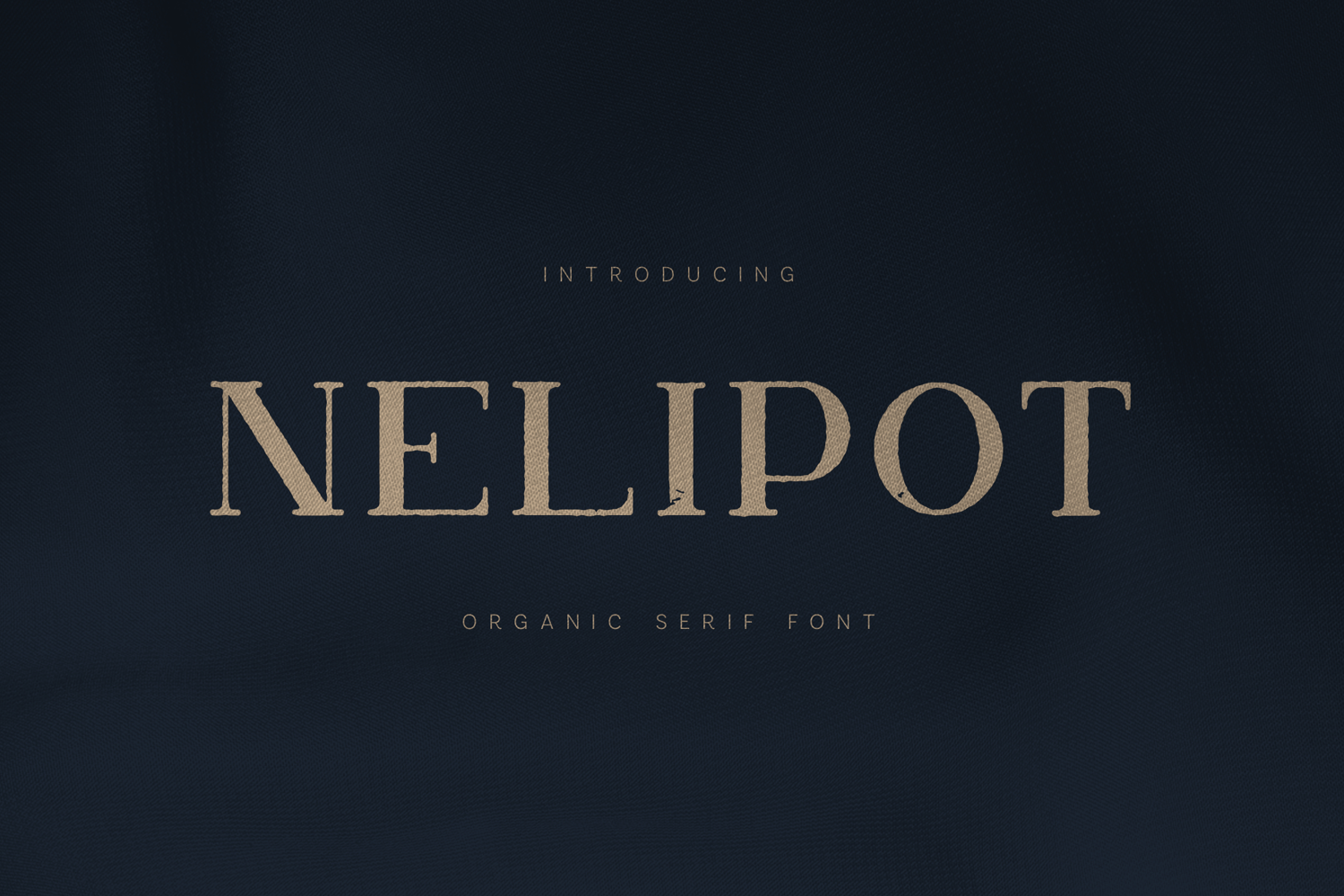
Nelipot Organic Serif Font
Nelipot is an organic serif typeface that blends classic elegance with subtle, imperfect character.
Designed with soft irregularities and a refined structure, it brings warmth into traditional serif typography. The result is a typeface that feels both timeless and human — structured, yet expressive.
Nelipot is ideal for designers who want their typography to feel natural, elevated, and quietly distinctive.
✦ Perfect for:• branding & visual identity
• editorial & magazine layouts
• packaging design
• fashion & beauty visuals
• logo design
• creative direction projects